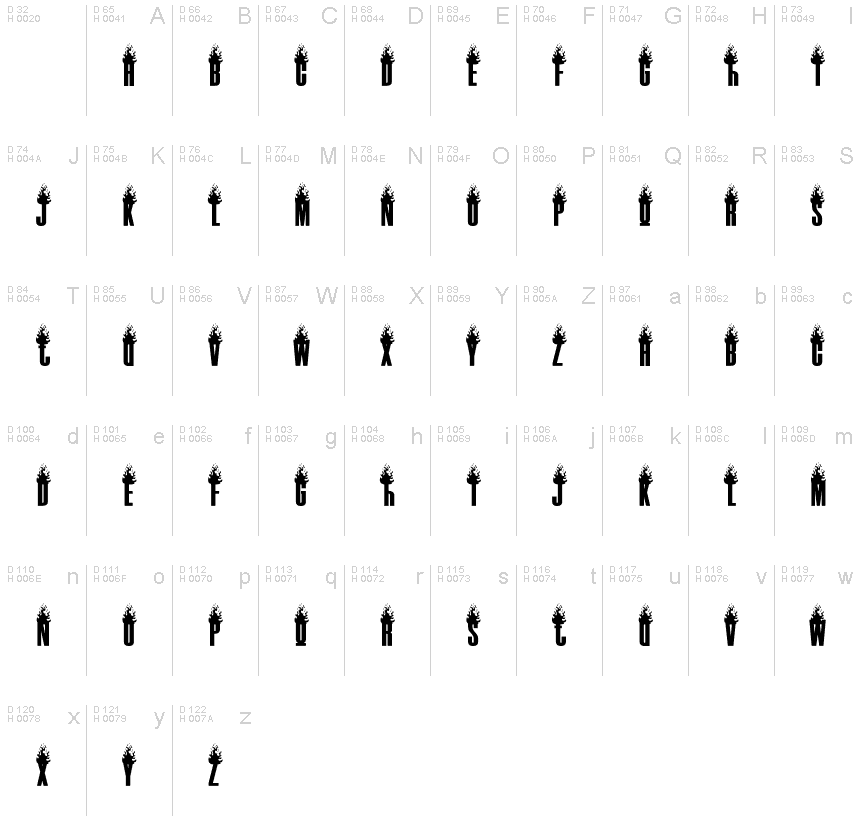
Blaze
Blaze, crafted by Scratchones, is an attention-grabbing display font that ignites creativity. With its decorative and fiery style, this typeface is perfect for branding projects that require a bold statement. Blaze's extra-condensed width adds visual impact to headlines, logos, and packaging designs, making it ideal for industries seeking a blazing presence such as sports teams, entertainment events, or fiery product launches. Let your projects rise from the ashes with Blaze - the ultimate choice for those who dare to stand out!